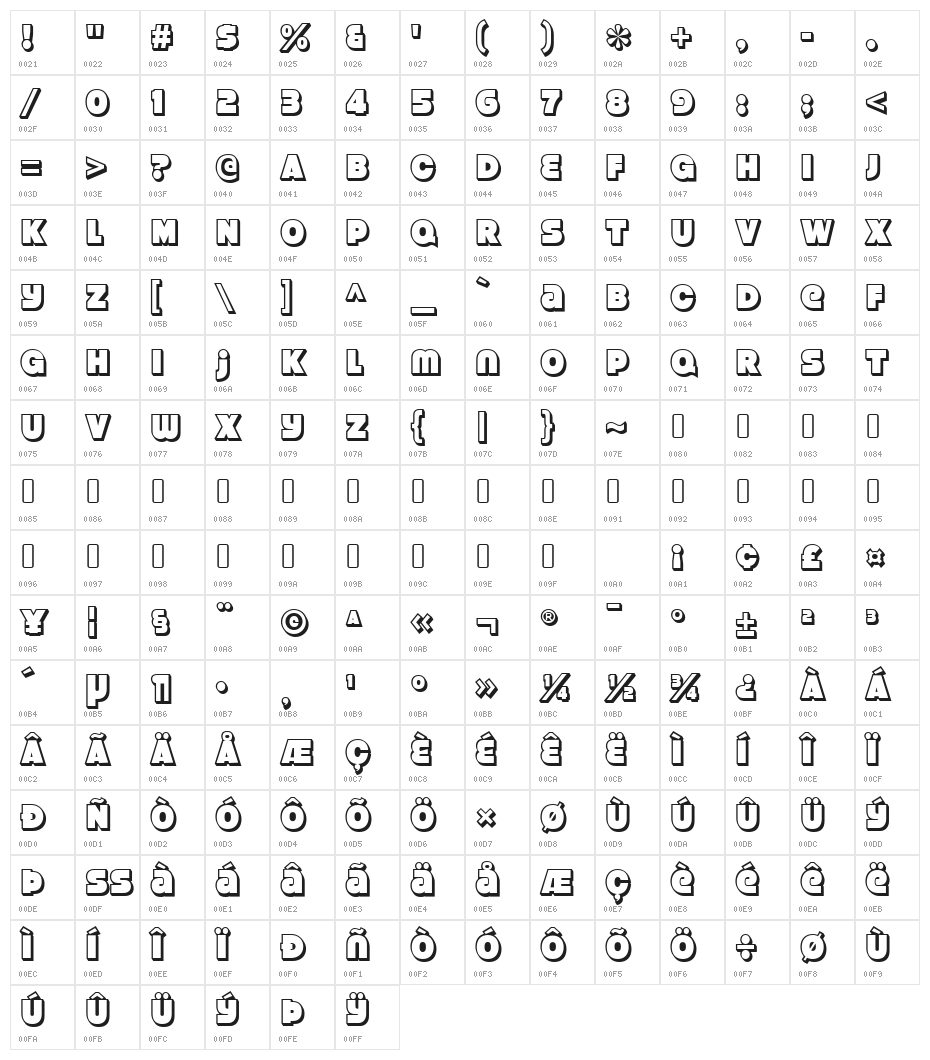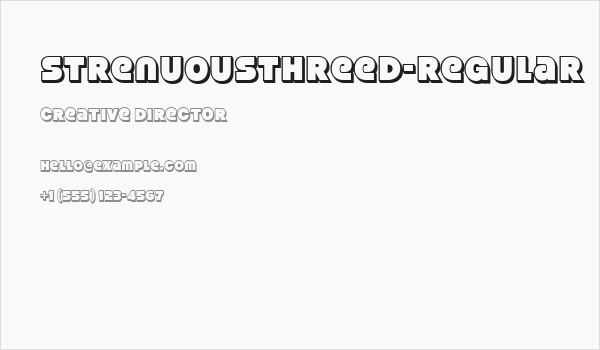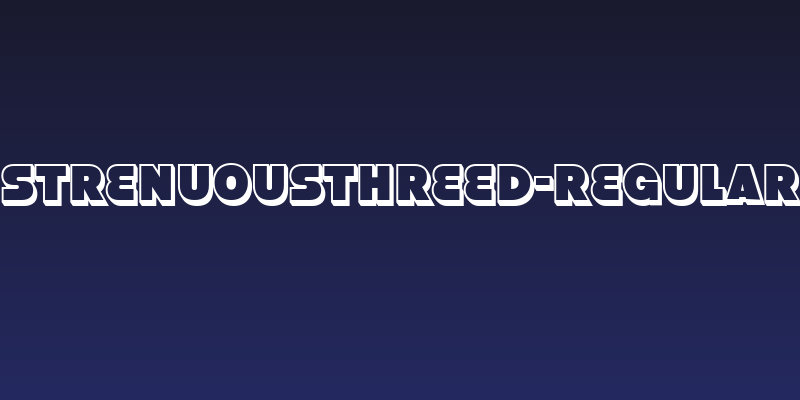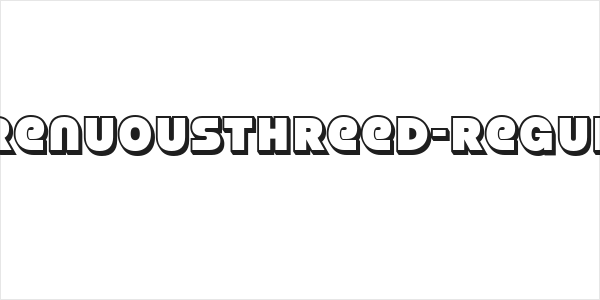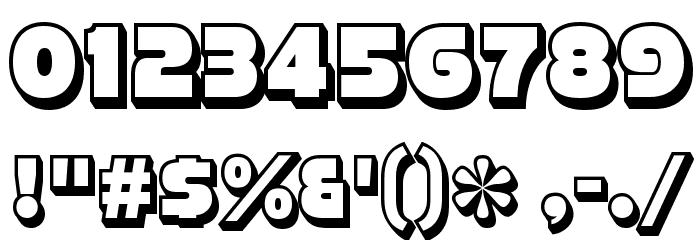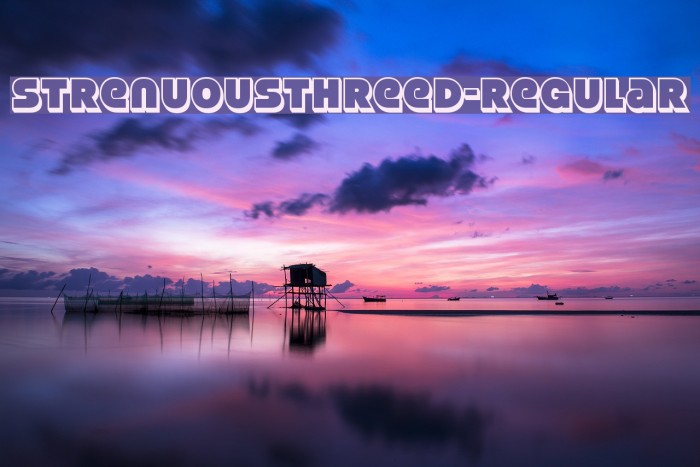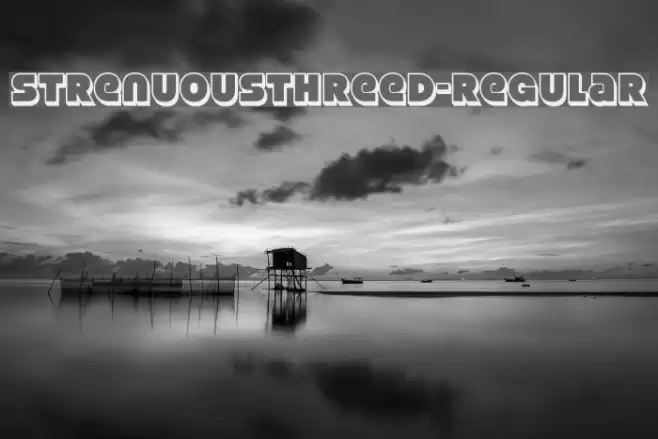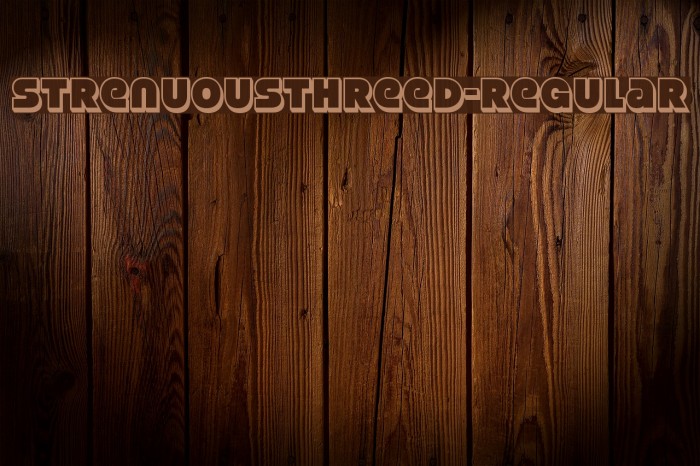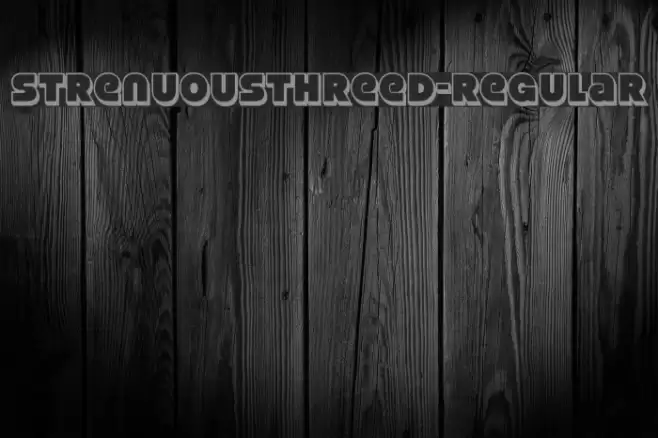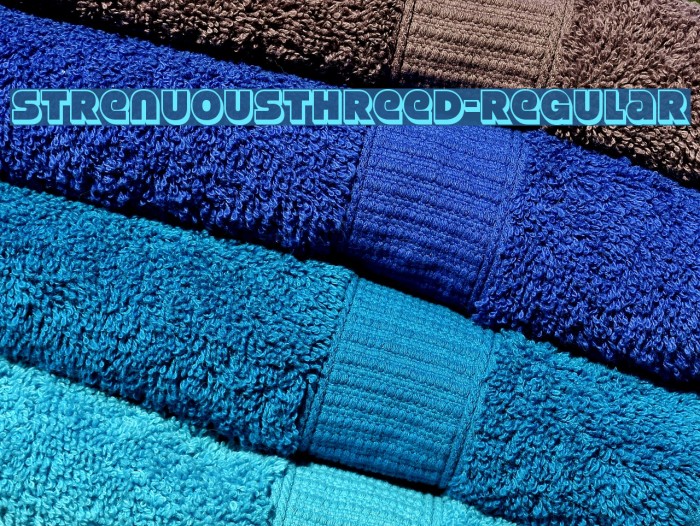
StrenuousThreeD-Regular Font
StrenuousThreeD-Regular Description
This font features a bold, three-dimensional design that gives it a striking and impactful appearance. The characters are blocky and robust, with a shadow effect that creates a sense of depth and dimension. The uppercase and lowercase letters maintain a consistent style, with rounded edges that soften the overall look. The numerals and special characters are equally bold, ensuring uniformity across all elements. This font's unique style makes it ideal for attention-grabbing designs.
| Proposed Projects | Ideal for posters, headlines, logos, and any design requiring a bold, eye-catching typeface. |